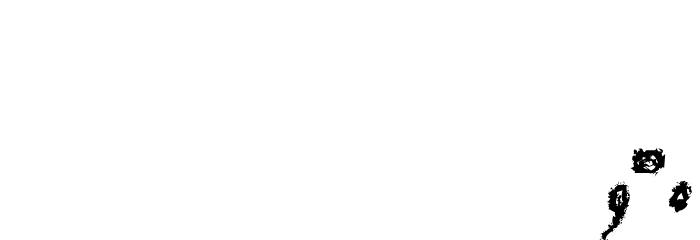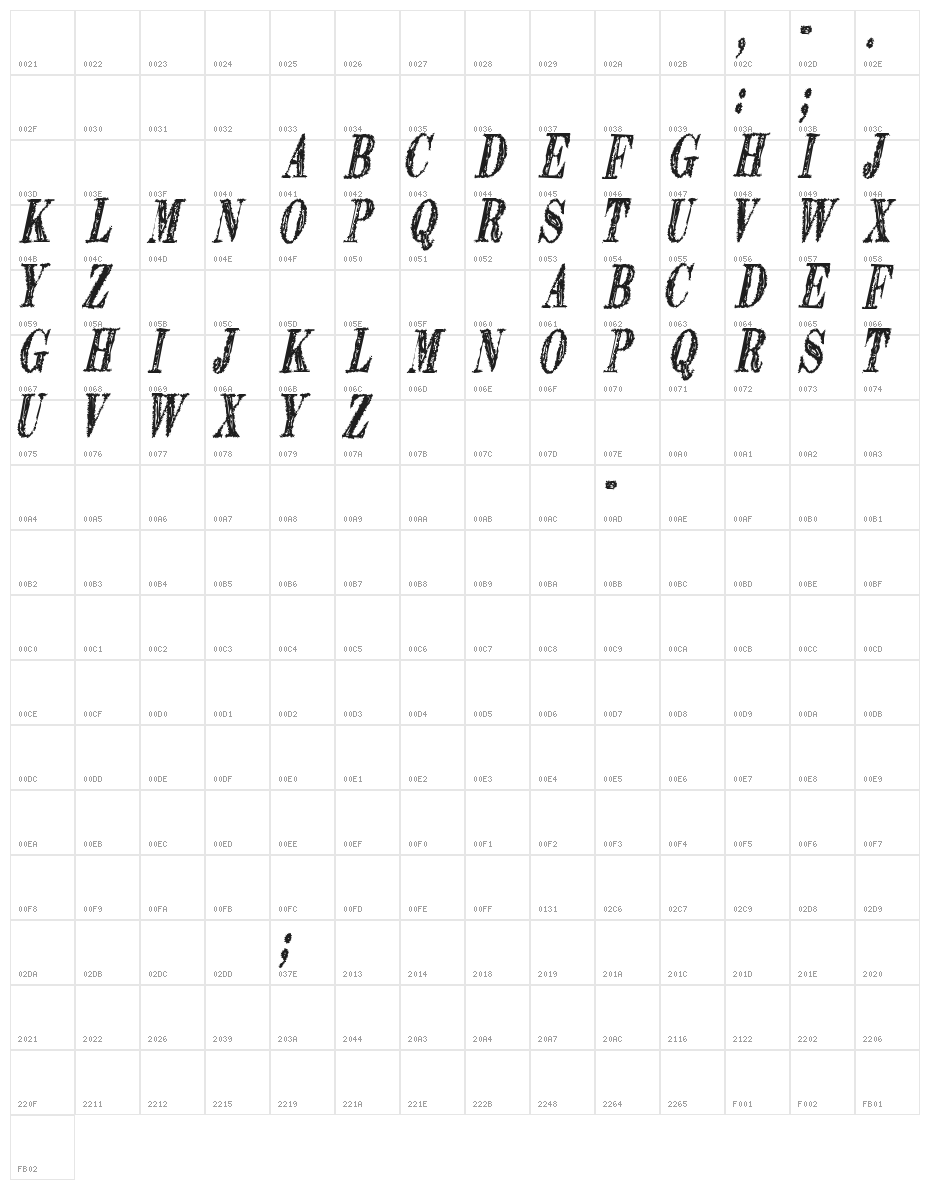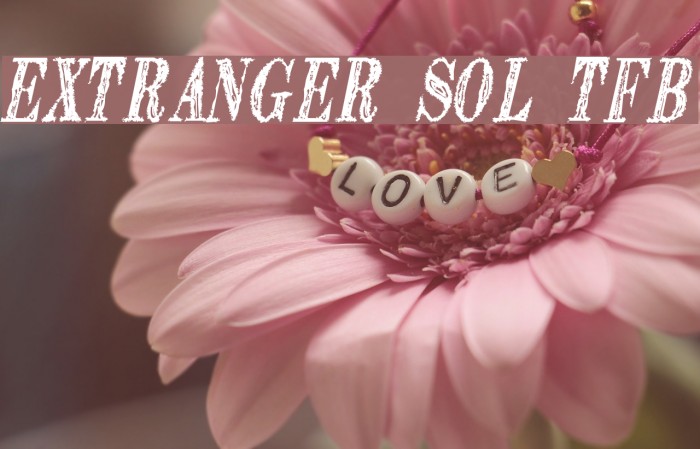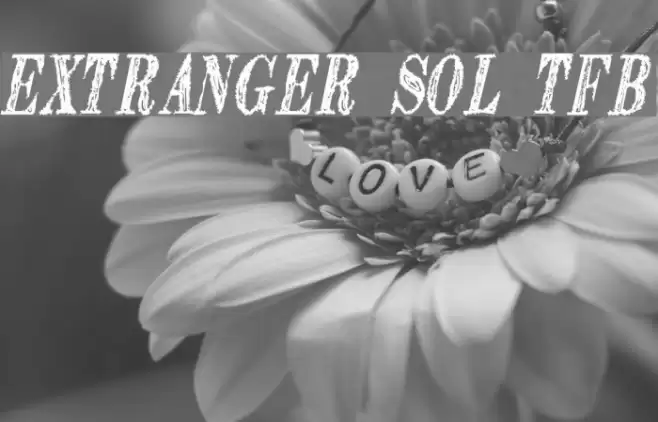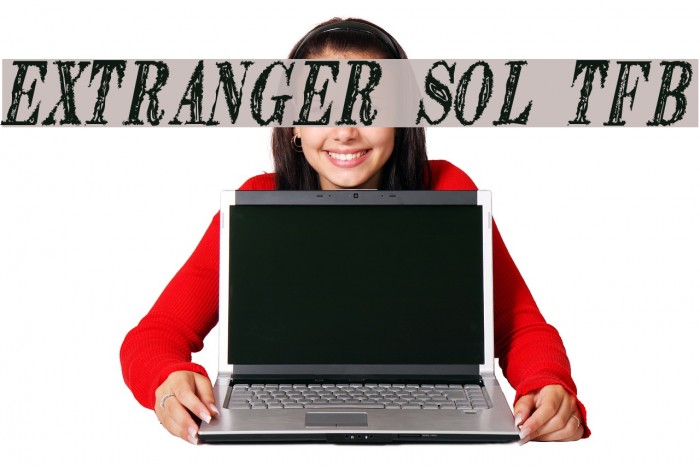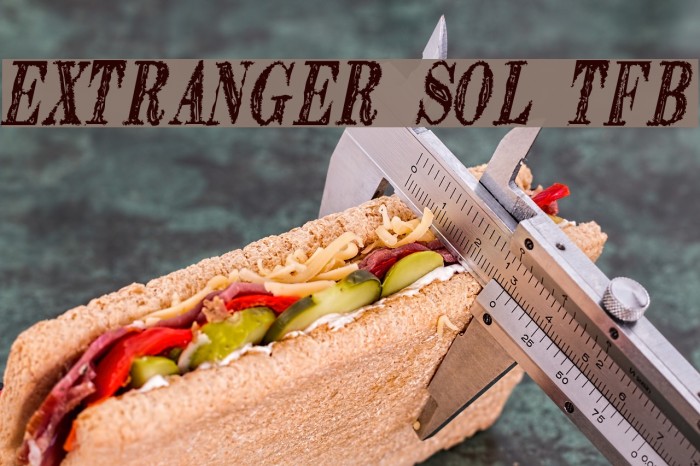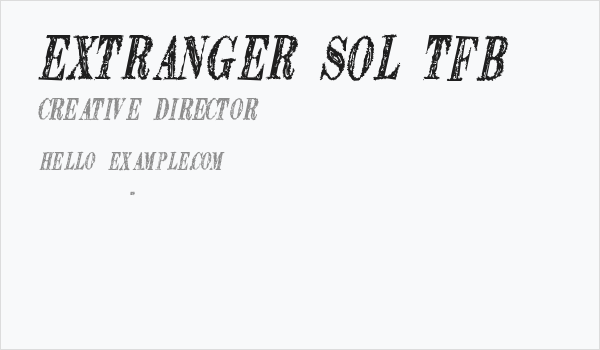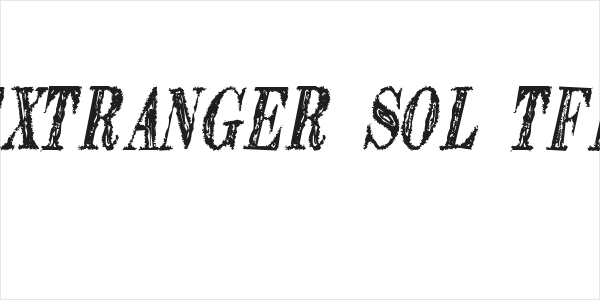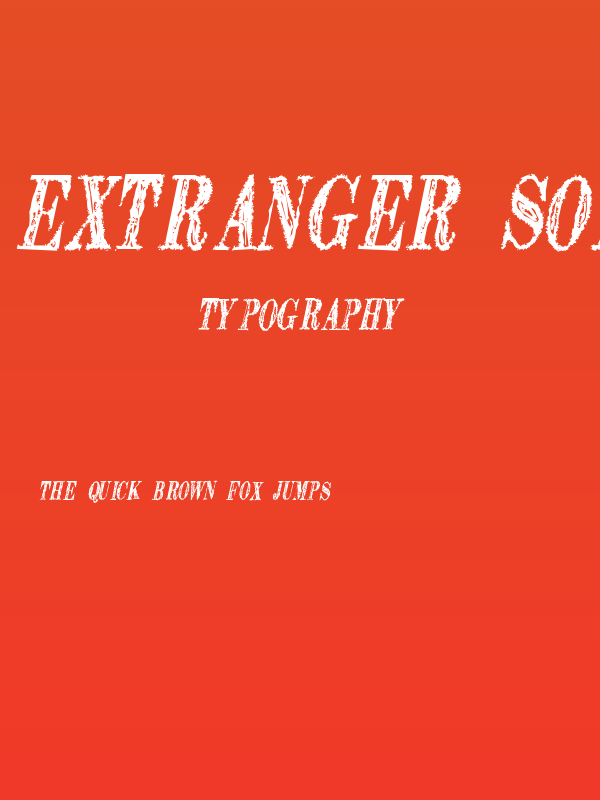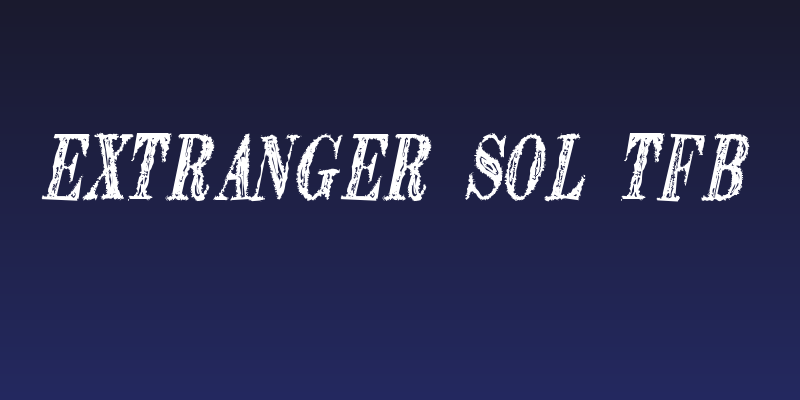
Extranger sol tfb Font
Extranger sol tfb Description
This font features a bold and distressed style, characterized by its rough, textured appearance. Each letter is crafted with a unique, hand-drawn look, giving it a vintage and rugged feel. The uppercase letters are particularly striking, with a strong presence that commands attention. The font's irregular edges and uneven strokes add to its charm, making it ideal for designs that require a touch of grunge or an aged aesthetic. The overall style is reminiscent of old printing techniques, where imperfections were part of the design. This font is perfect for creating eye-catching headlines, posters, or any project that seeks to convey a sense of authenticity and character.
| Proposed Projects | Ideal for posters, album covers, vintage-themed designs, and branding that requires a rugged aesthetic. |